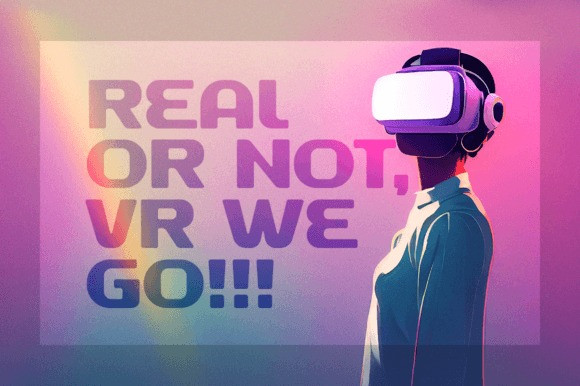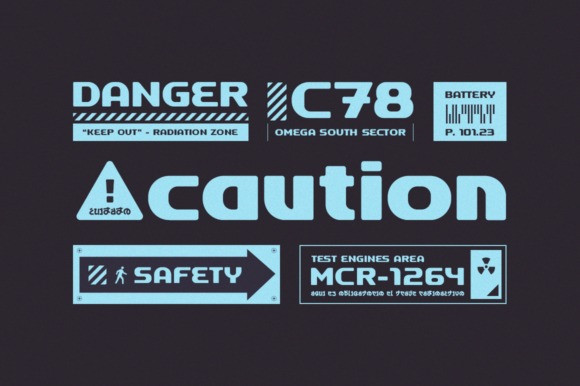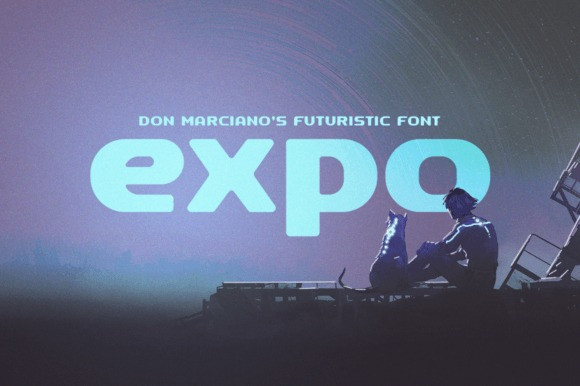
Expo Font
Expo Display Font is a futuristic sci-fi display font created with a fluid rounded style to evoke a retro aesthetic in a modern feel, the typeface goal is to modernize the retro trend with a fresh take.
This font was particularly crafted for those who need a distinctive and sci-fi look to their designs.